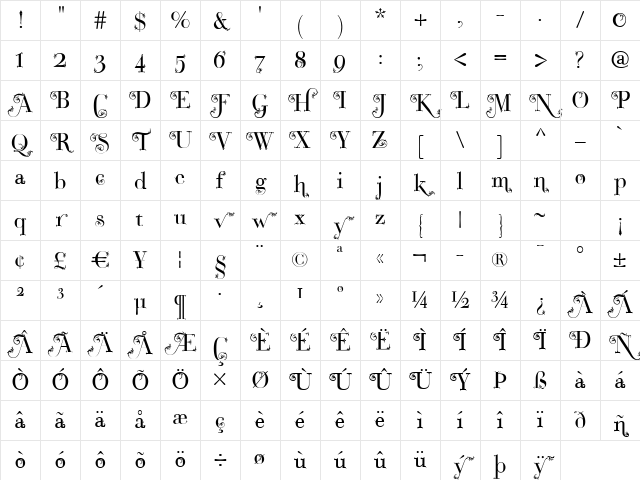
Vivian Regular Free Font
Vivian Regular
Vivian Family
Design Context for Vivian
Vivian is a composed and adaptable typeface that performs quietly and consistently across a wide range of design contexts.